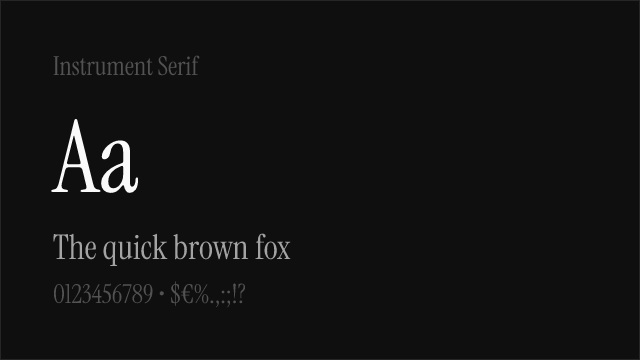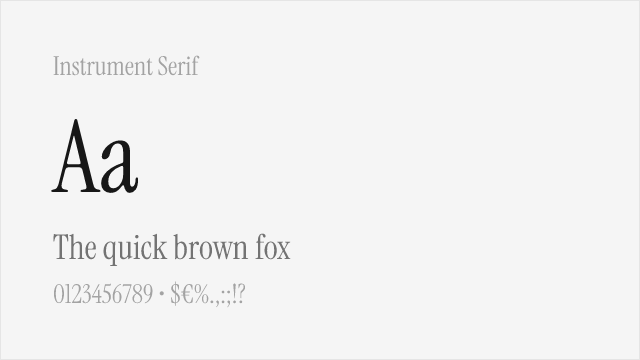
Free Alternatives to Voyage for Display & Headlines
3 alternatives | serif | Best match: Playfair Display (72%)
Looking for a free serif font for display & headlines projects? Voyage by Pangram is a popular choice, but its licensing cost can be prohibitive. We've curated 3 free alternatives that work well in display & headlines contexts. Each alternative is scored by visual similarity and contextual relevance, and ships under an open-source license for both personal and commercial use.
Similar elegant display
Comparable luxury character
Compact serif with sharp contrast that echoes Voyage's luxury presence